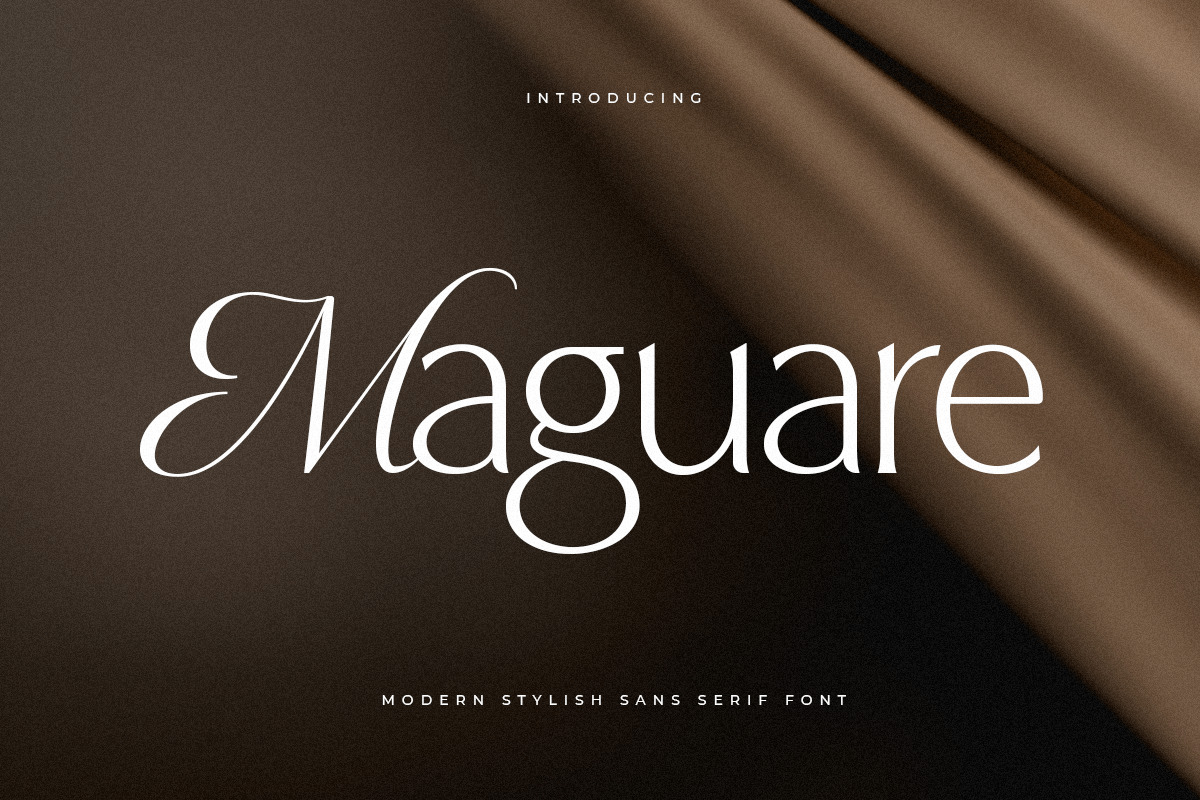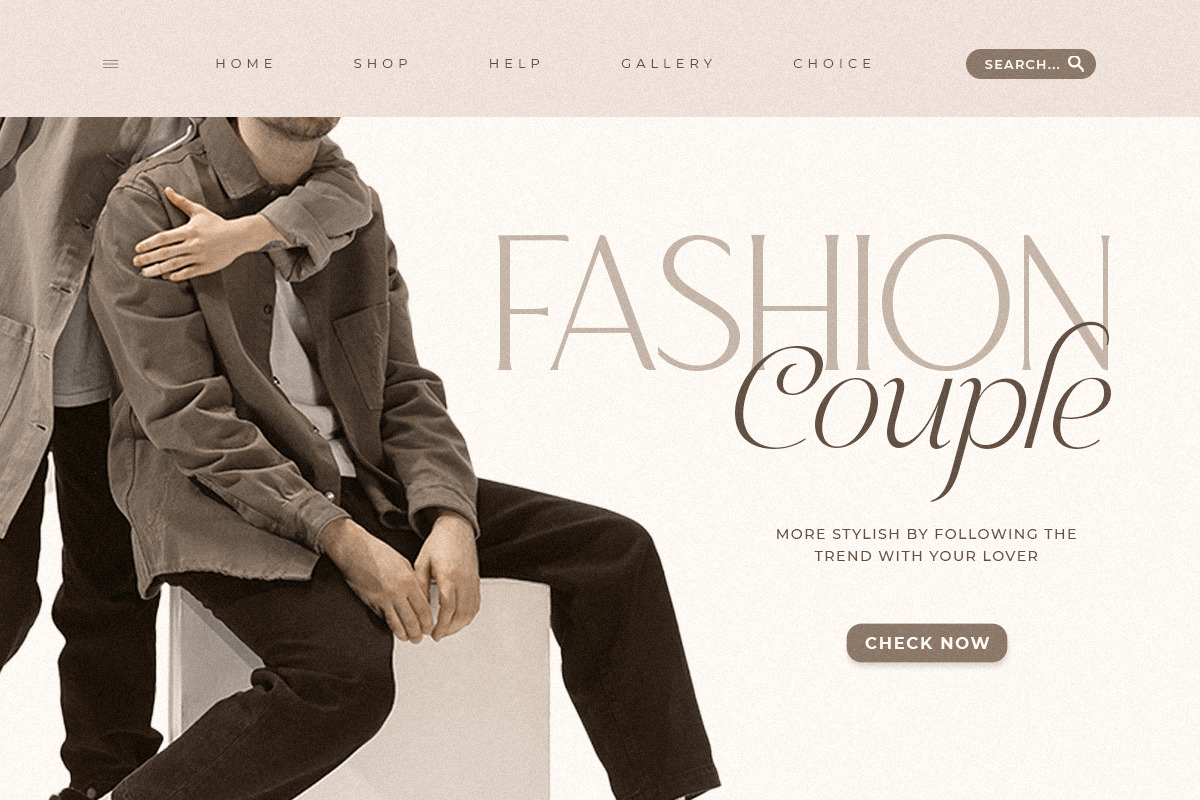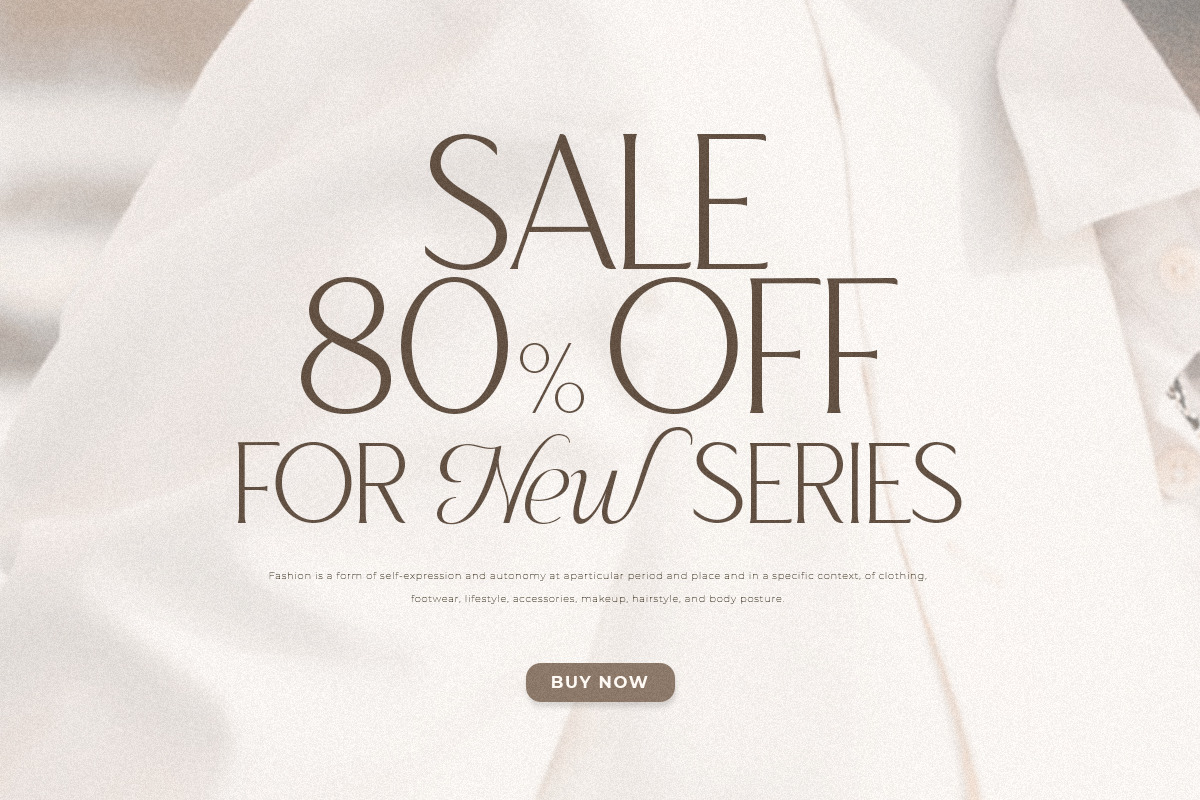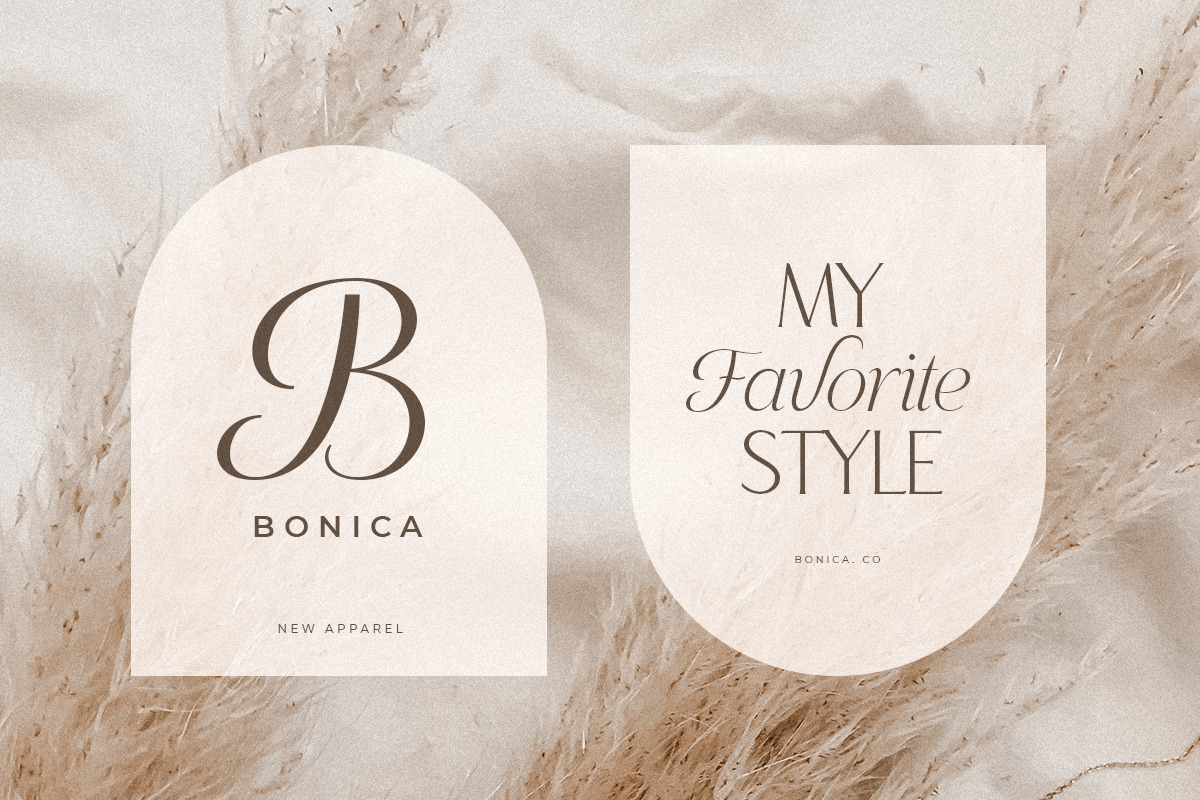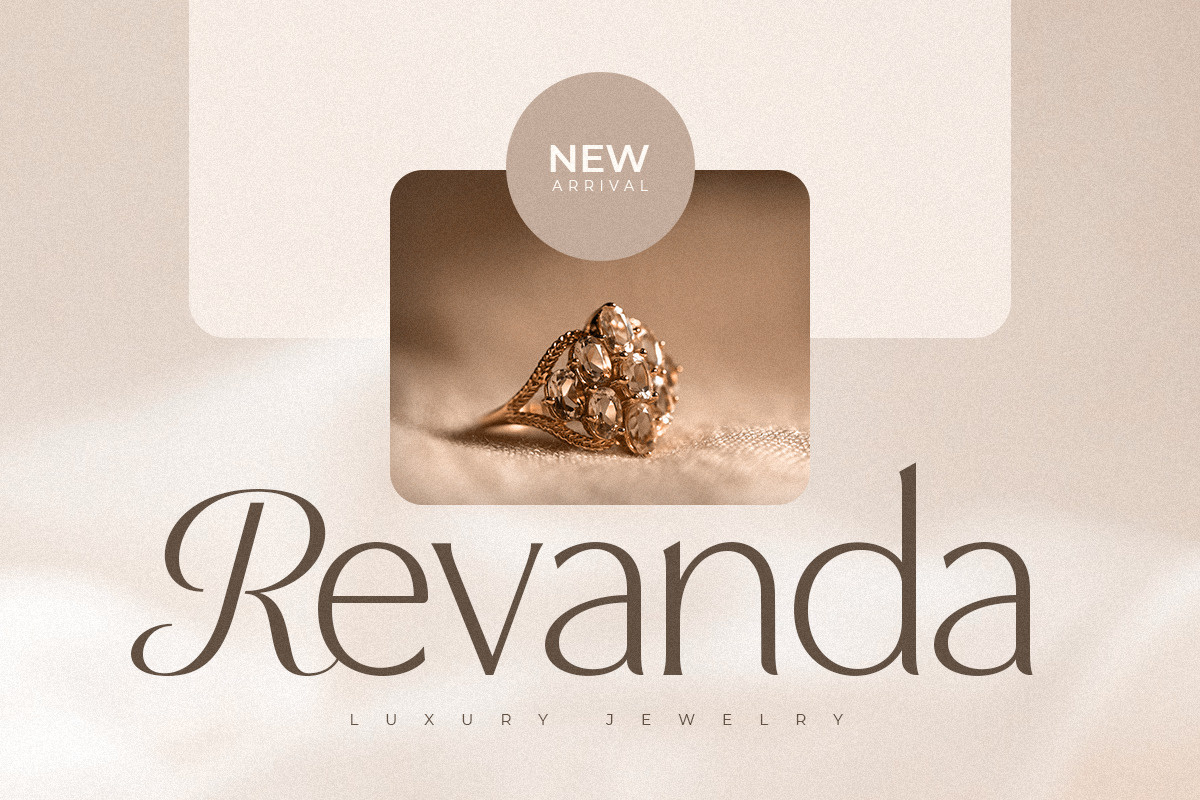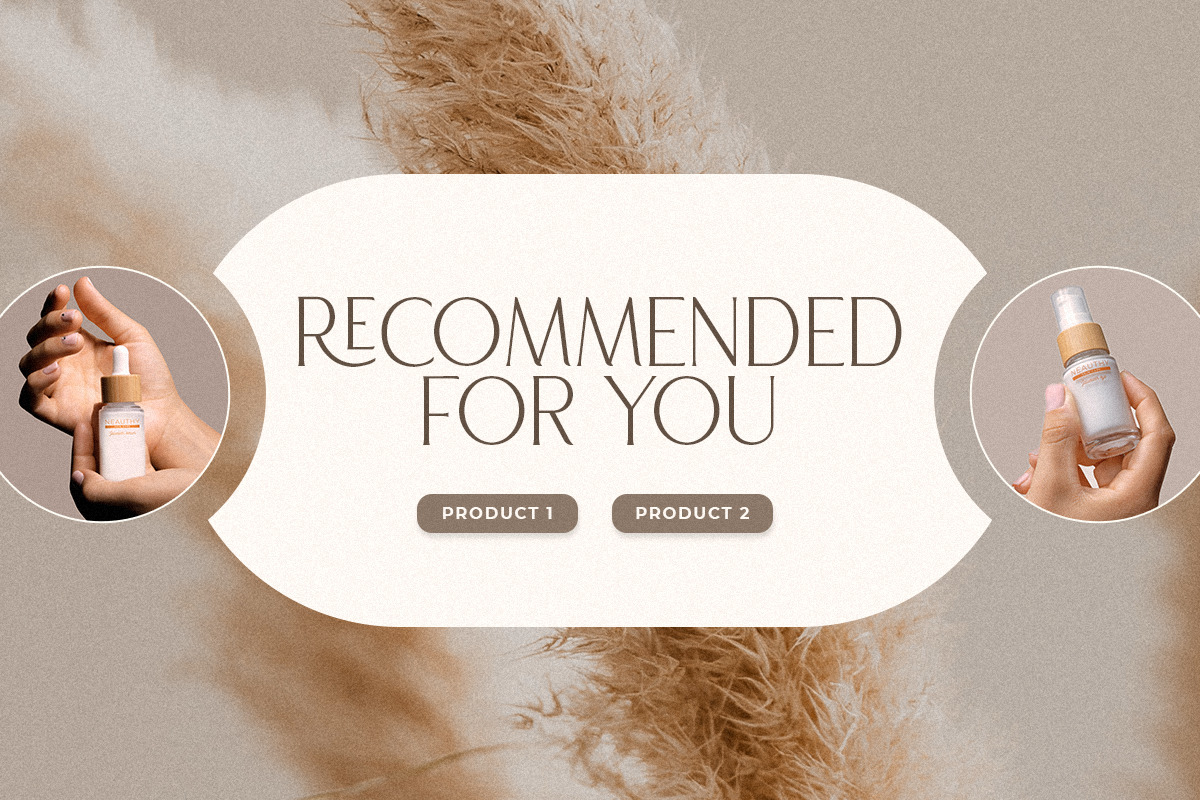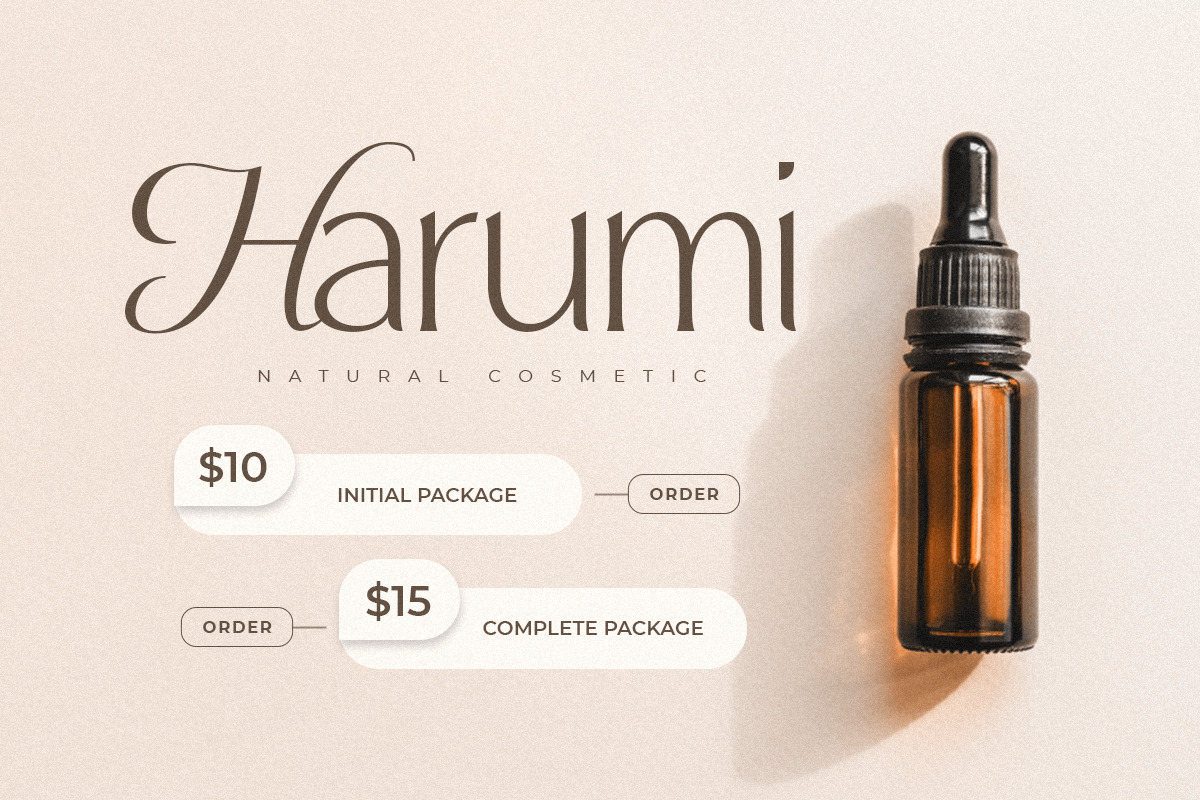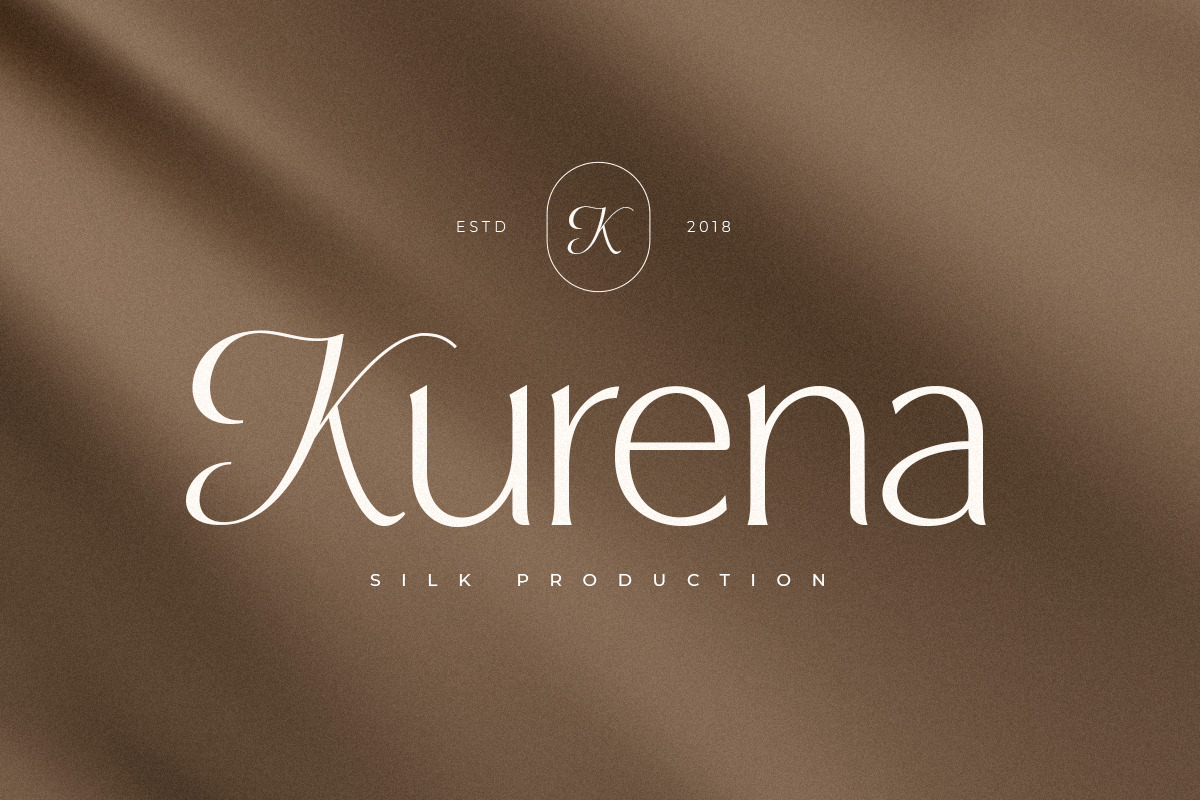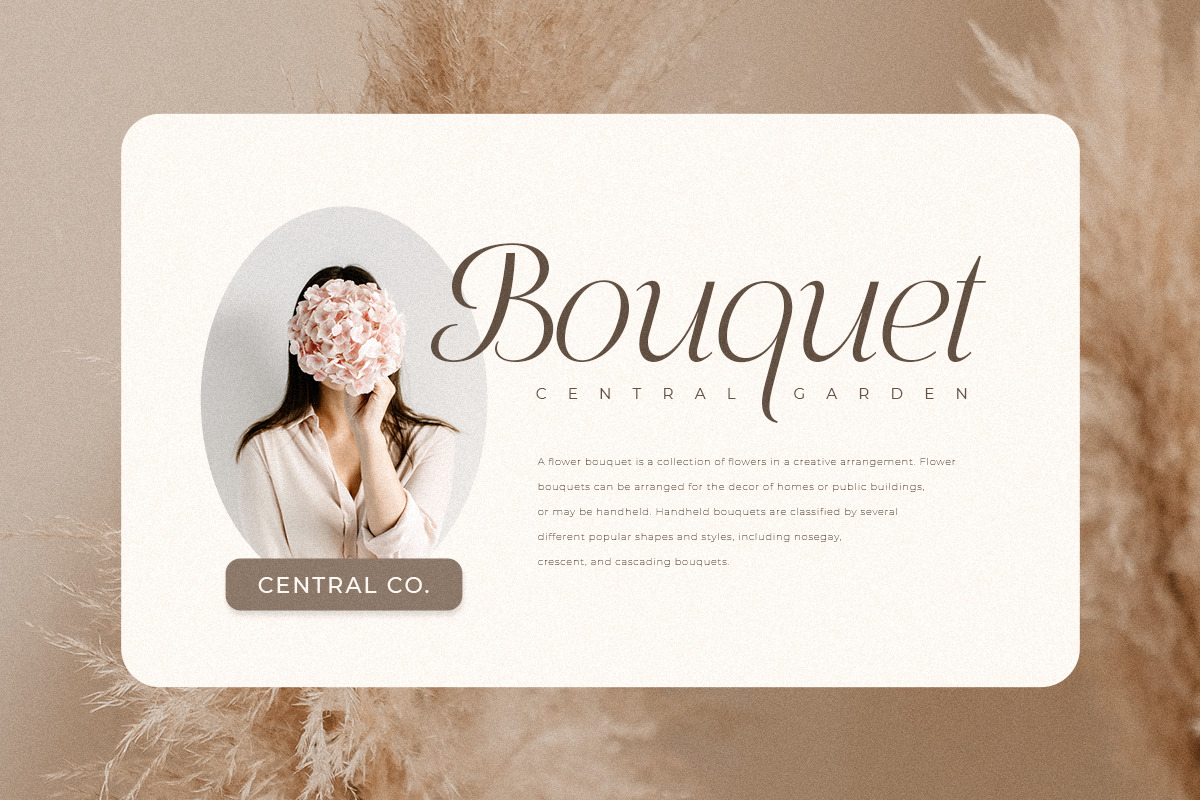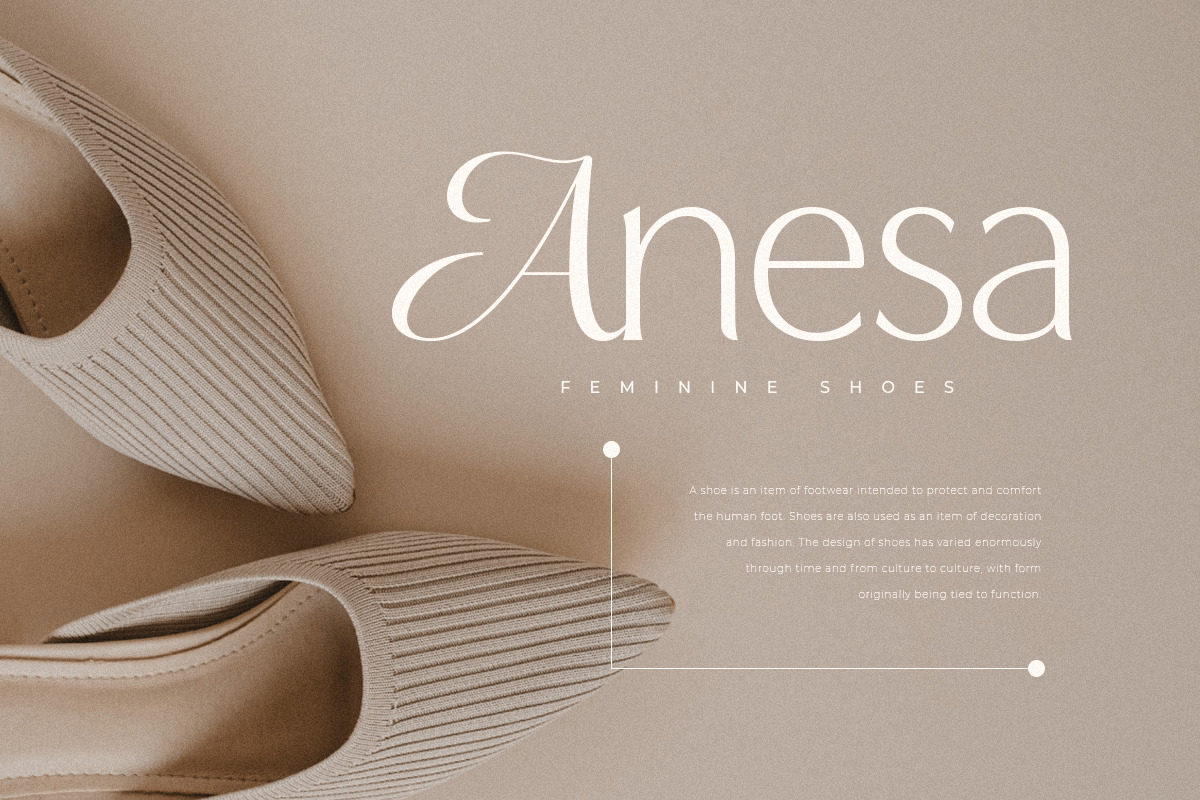
Maguare – Modern Stylish Serif Font
A Modern Stylish Serif Font that we created special for elegant and Fashion branding needs that we created special for elegant branding needs, with extra ligature and alternates in unique shape will be ready to add value of your brand. It so nice to leverage designer or product owner that need solutions to make their design look more classy and modern. And specially for this font, We prepared any ligatures, and any alternate characters to help you create unlimited variations for your creative needs.